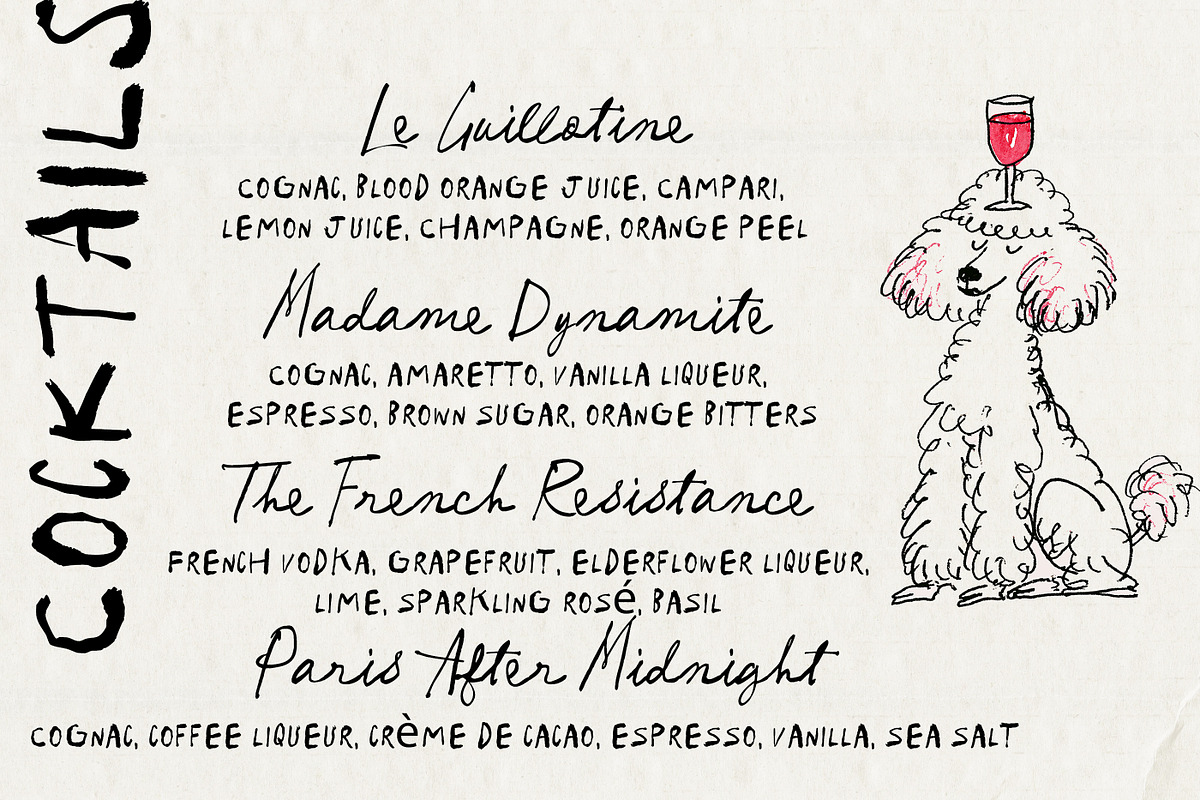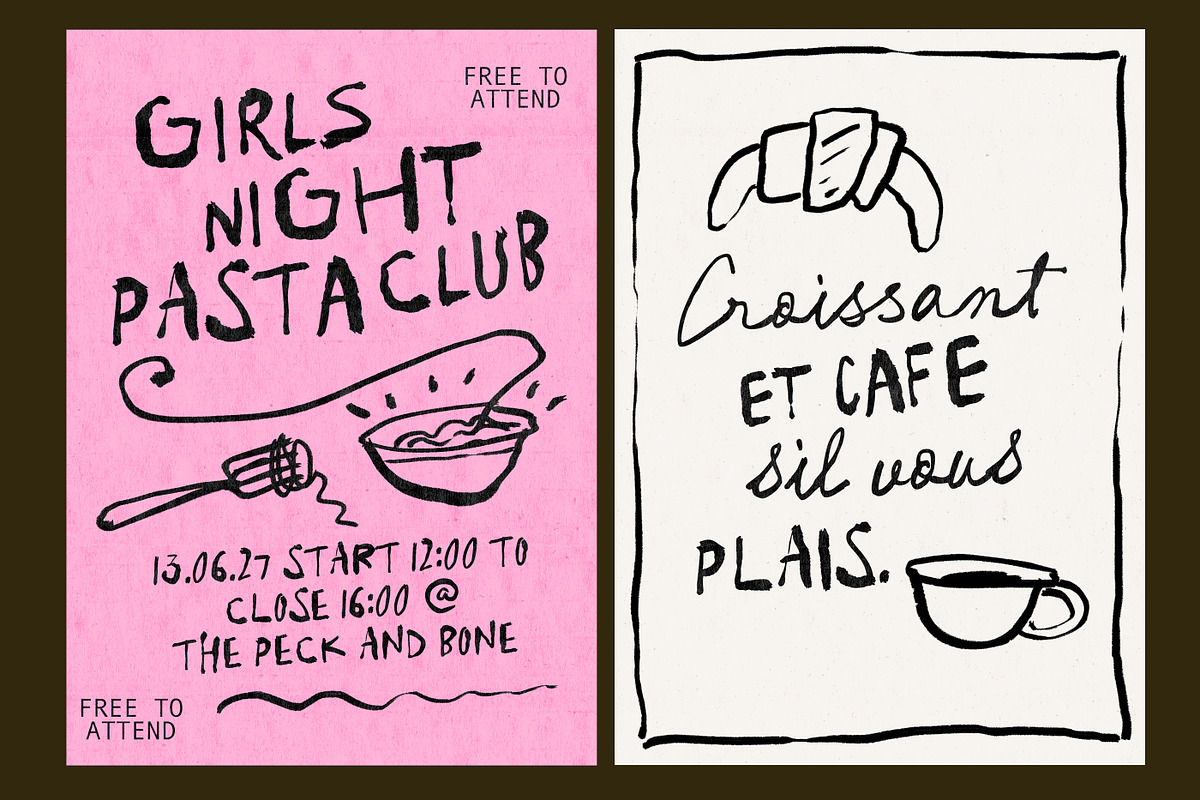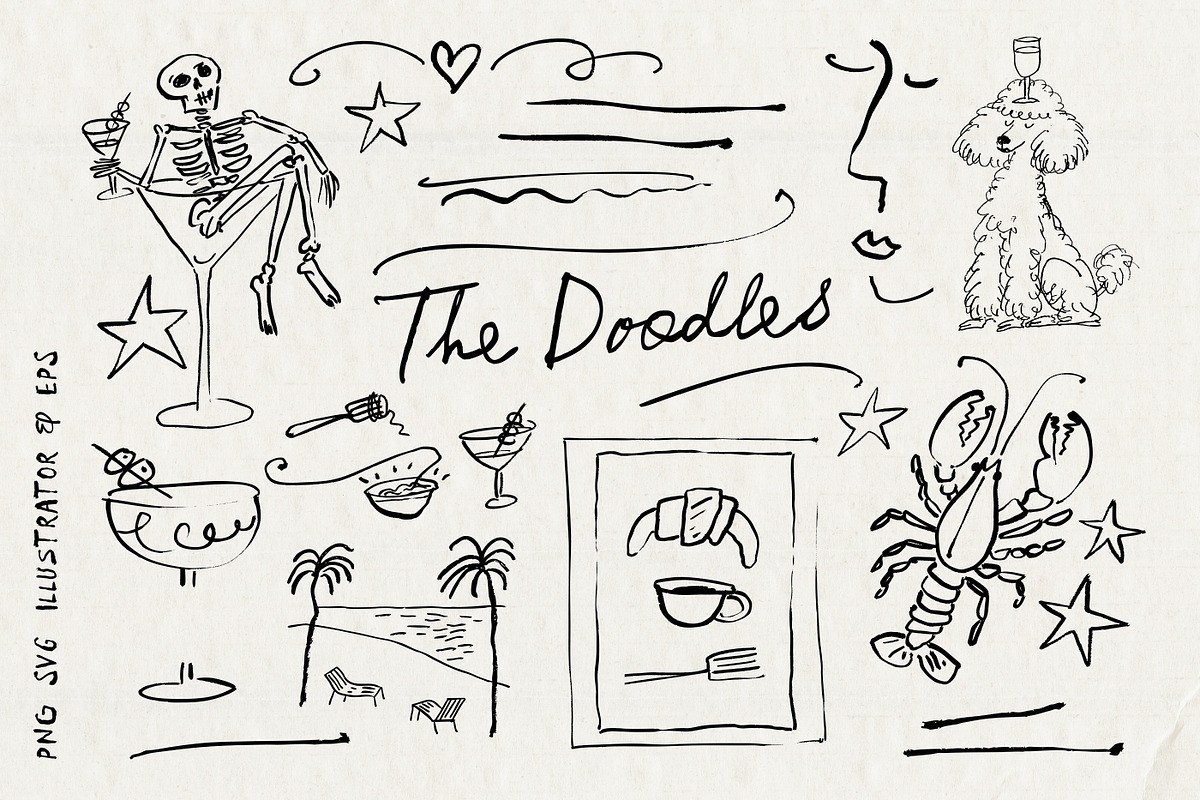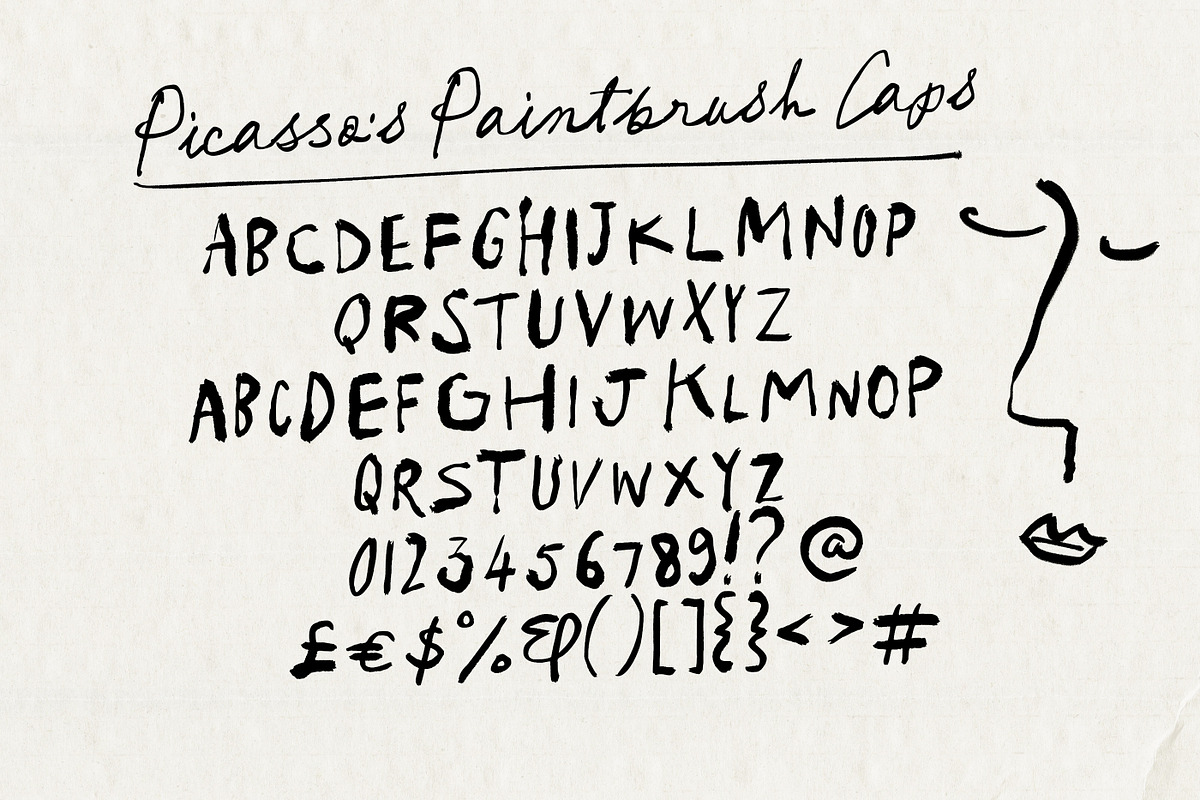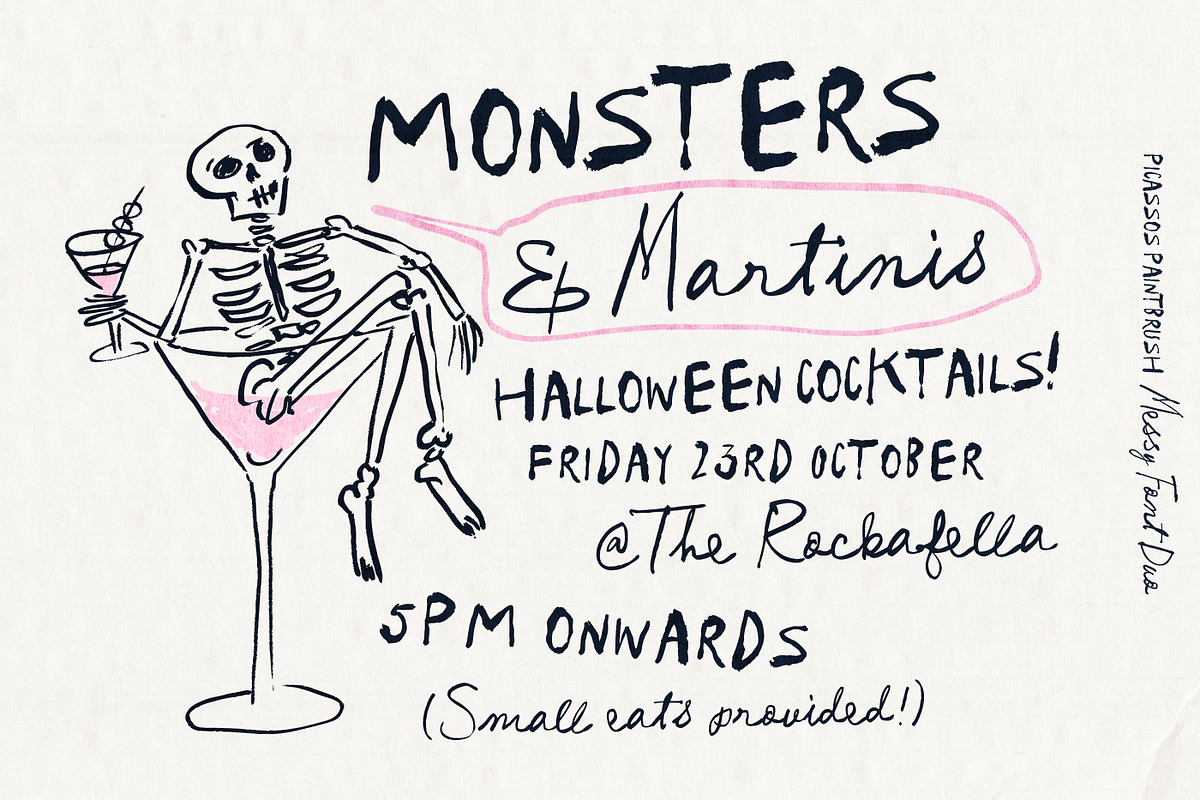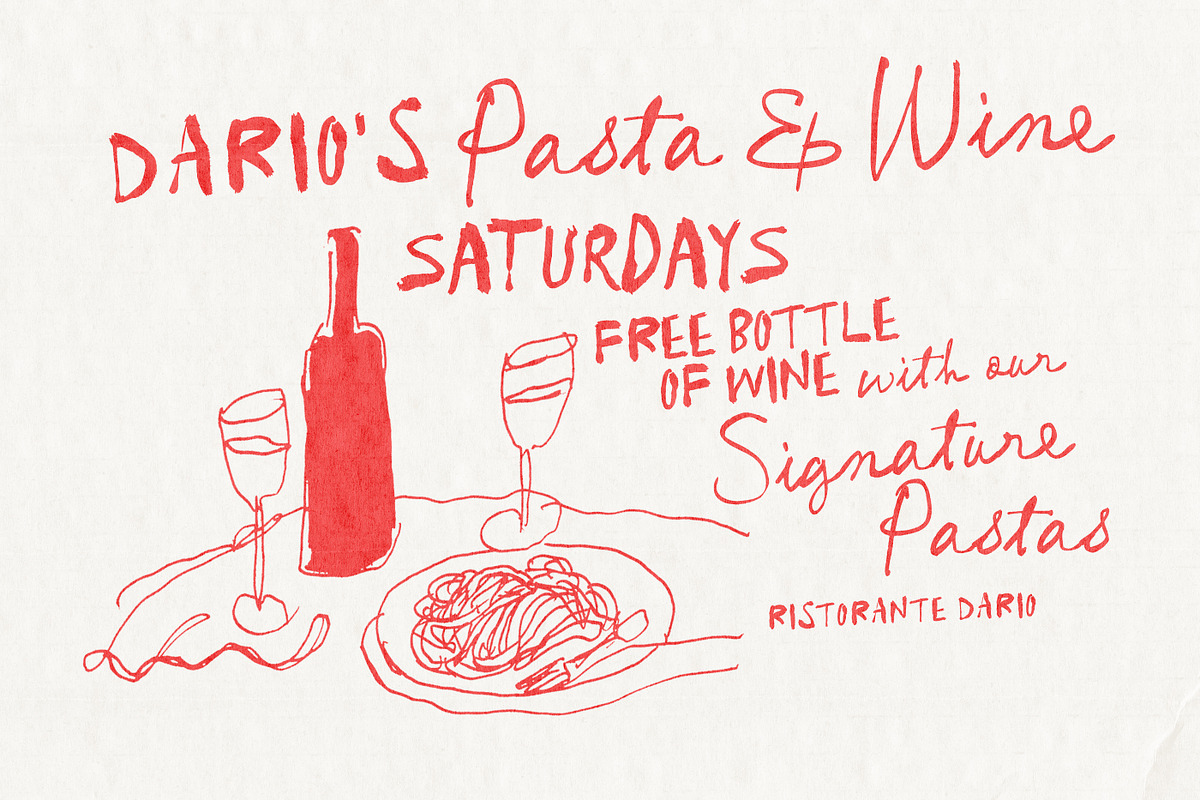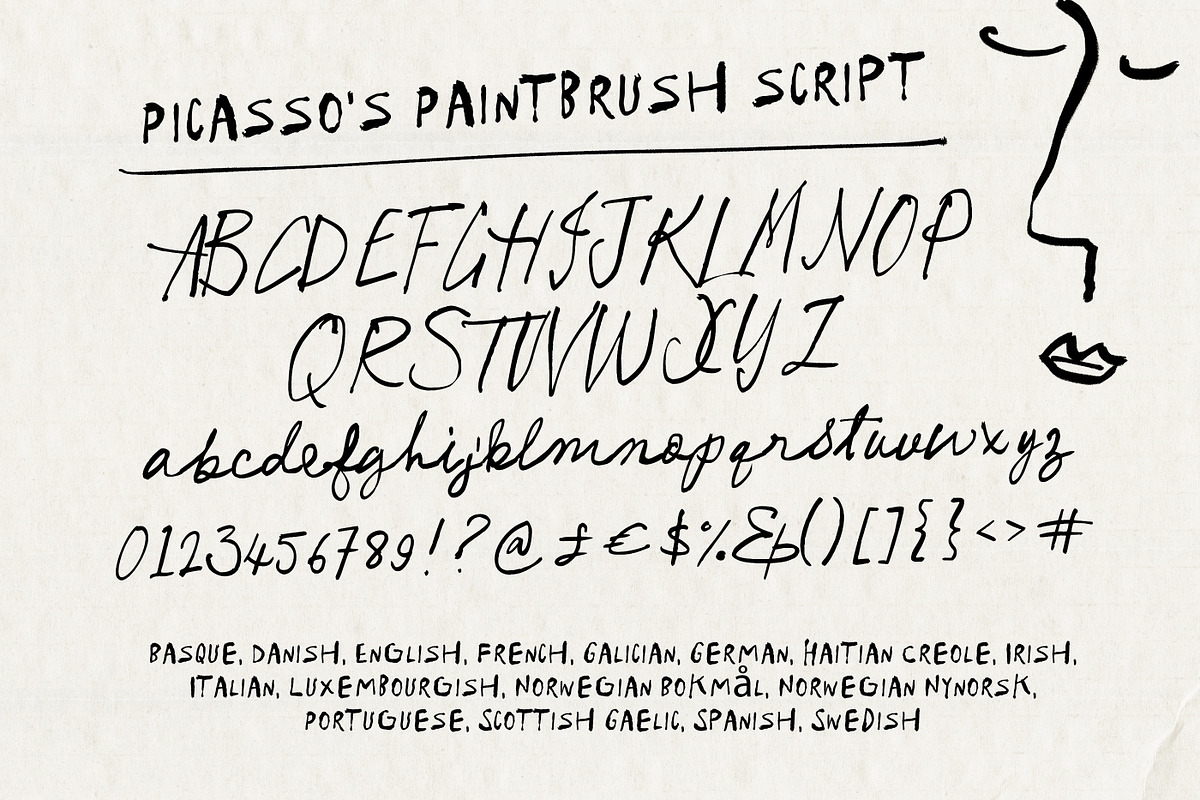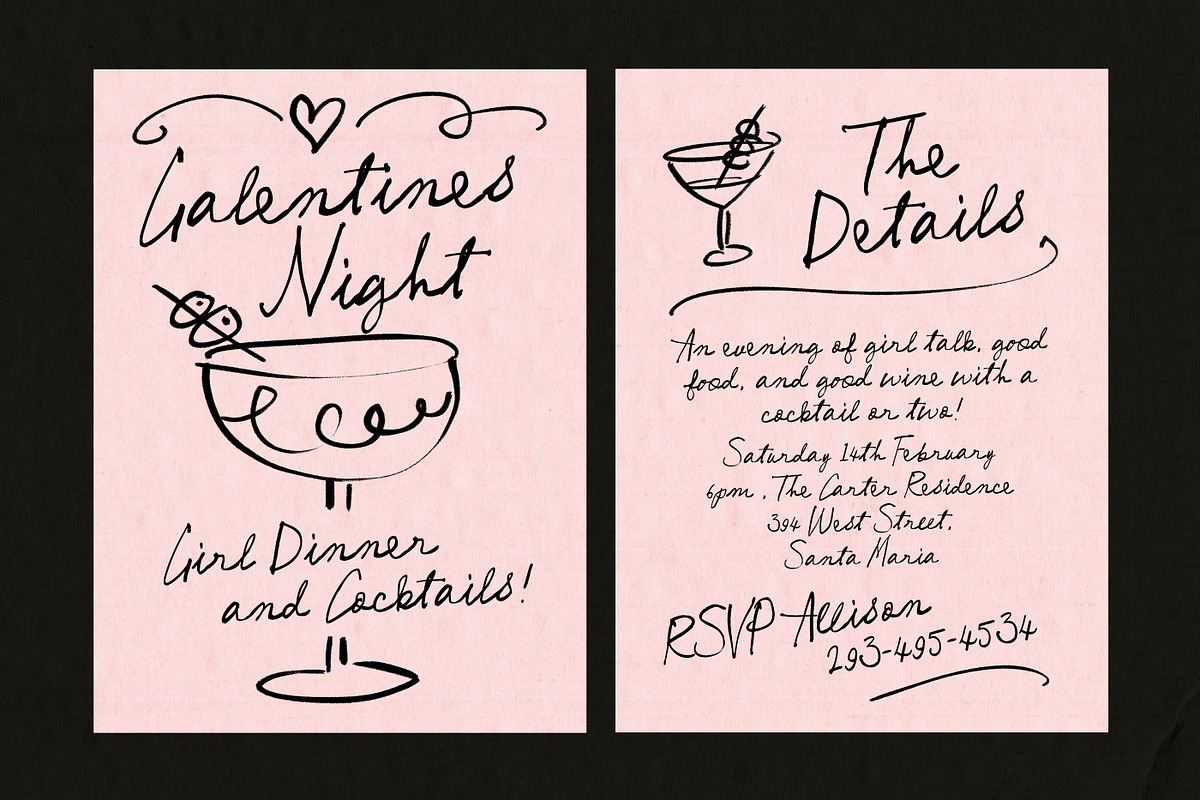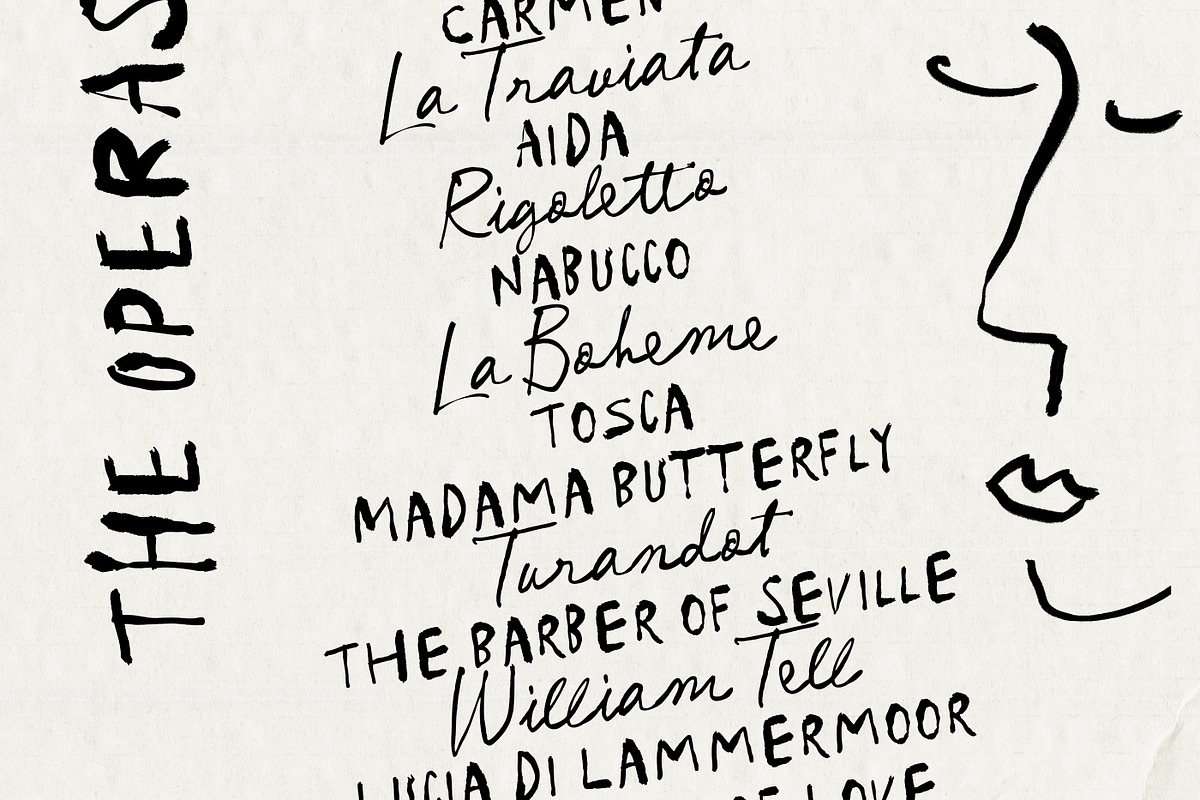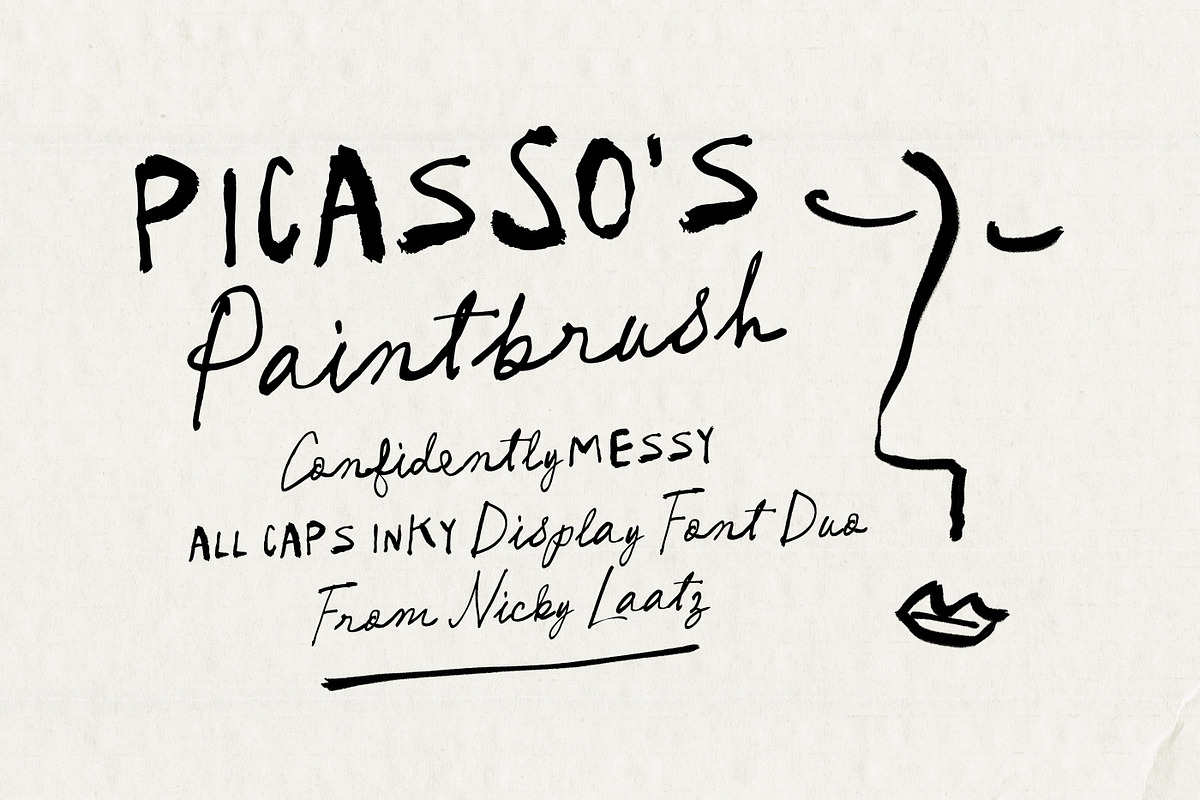
Picasso's Paintbrush Font Duo
Unapologetically Messy - with splashes, scratches, loops, and struts , the new Picassos Paintbrush Font duo designed to emulate unruly inks on paper!
With expressive wobbly edges and artistic strokes - the duo has imperfections that create a distinclty wild and slightly rebellious duo!
Perfect for striking branding, unusual packaging, avant garde invites and editorial designs that want a distinctly handmade touch.
Opentype Ligatures and Capital alternates are invcluded in the script for an extra natural look.